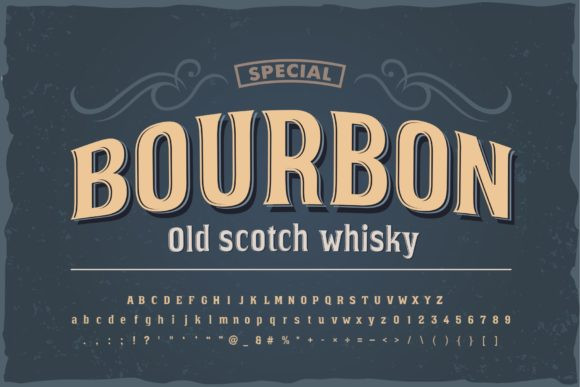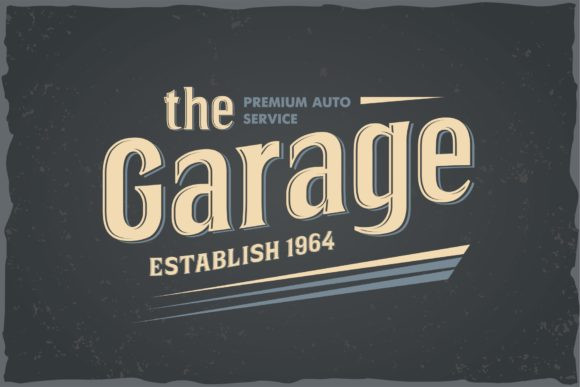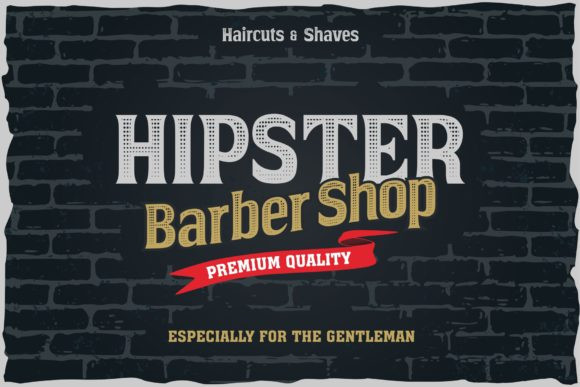
Bourbon Font
Bourbon is a vintage styled and assertive display font, crafted to give your headlines and logotype projects a stylish touch. This font reads as strong, confident, and dynamic and can add tons of nostalgic character to your designs.